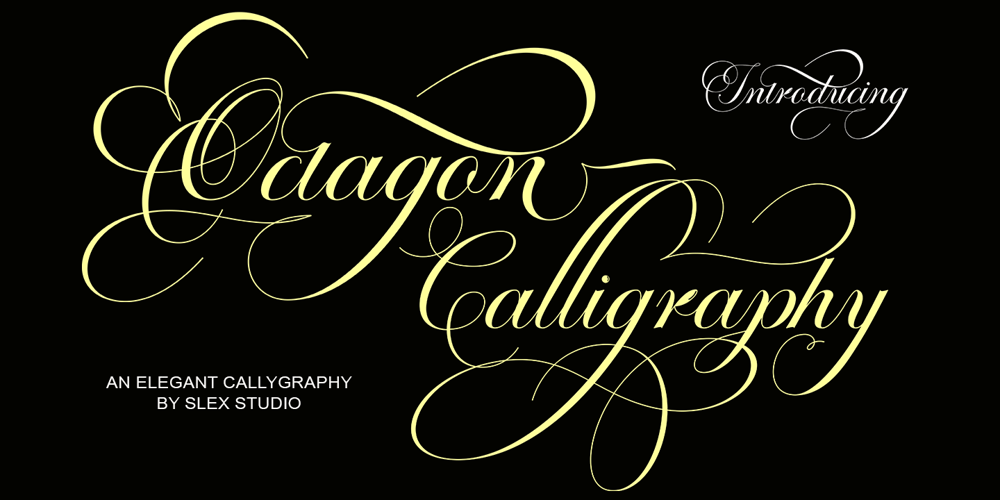
Octagon Calligraphy Font Family was designed by Muhammad Rayyan and published by Slex Studio. Octagon Calligraphy contains 1 styles and family package options. Octagon Calligraphy is calligraphy font with a classic style and a touch of elegance, inspired by the handwriting of women and ancient manuscripts. Carefully designed to work together in harmony that makes it very suitable for wedding media, book covers, greeting cards, logos, branding, business cards and certificates, even for any design work that requires a classic, formal or luxurious.Try Octagon Calligraphy, enjoy the richness of OpenType features and let her fun and elegant excitement make you happy and enhance your creativity! You can use this font very easily.multilingual support and ligaturesYour download will include OTF & TTF format files. If you do not have programs that support OpenType features like Adobe Illustrator and CorelDraw X Versions, you can access all alternative flying machines using Font Book (Mac) or Character Map (Windows):Do not forget to see, buy, like and share my other great products.And feel free if you have a question, please contact me : slexs515@gmail.comThank you for purchases.!